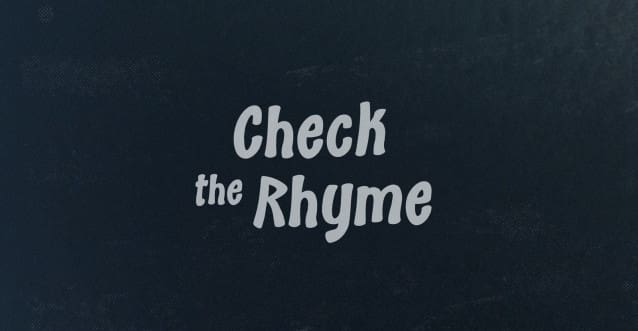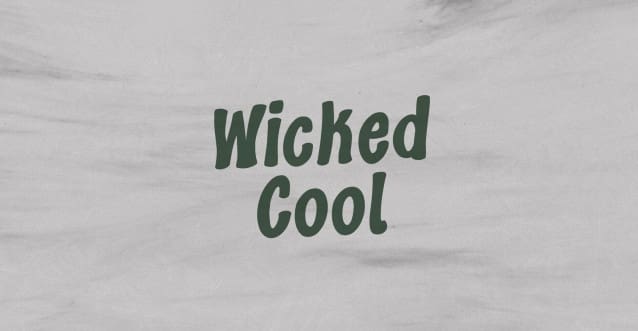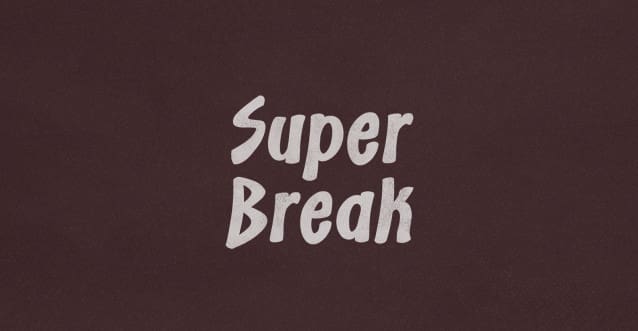
Super Break Font
Super Break Font is a chunky, comic, and cartoon display font. With its neat and joyful personality, this font will enhance any project you wish to create!